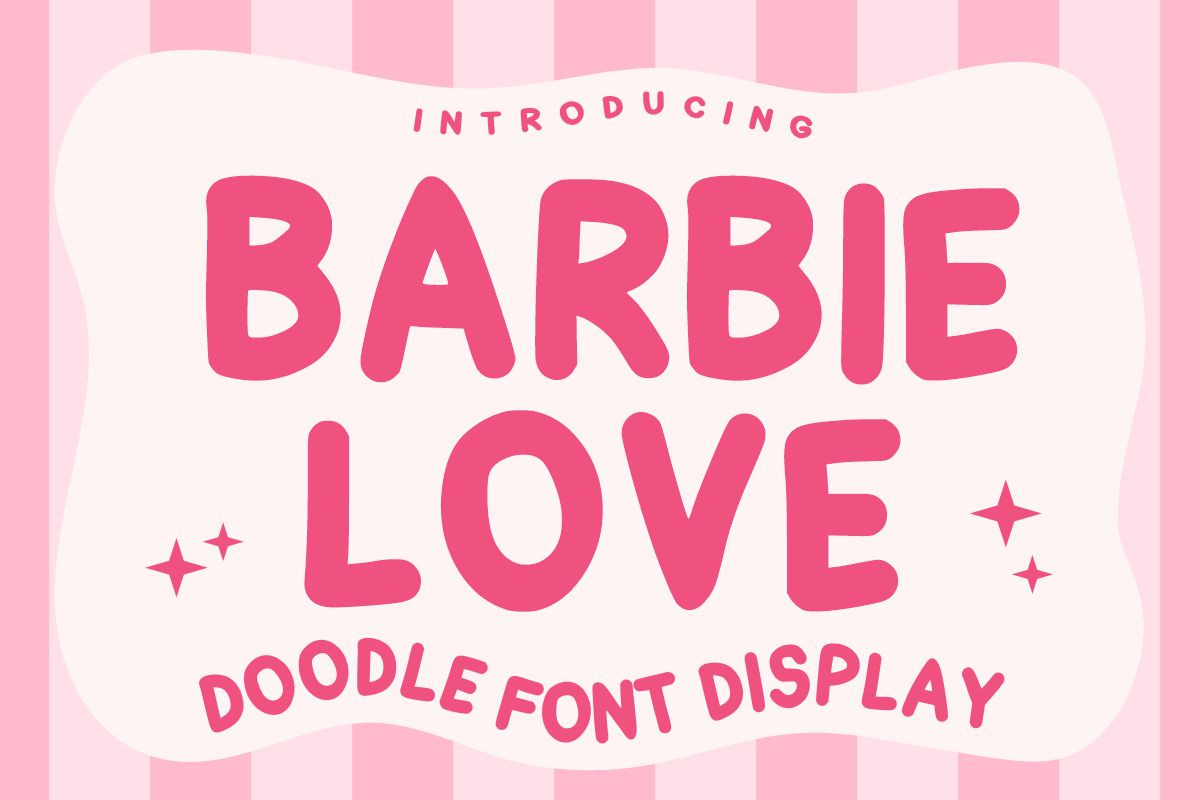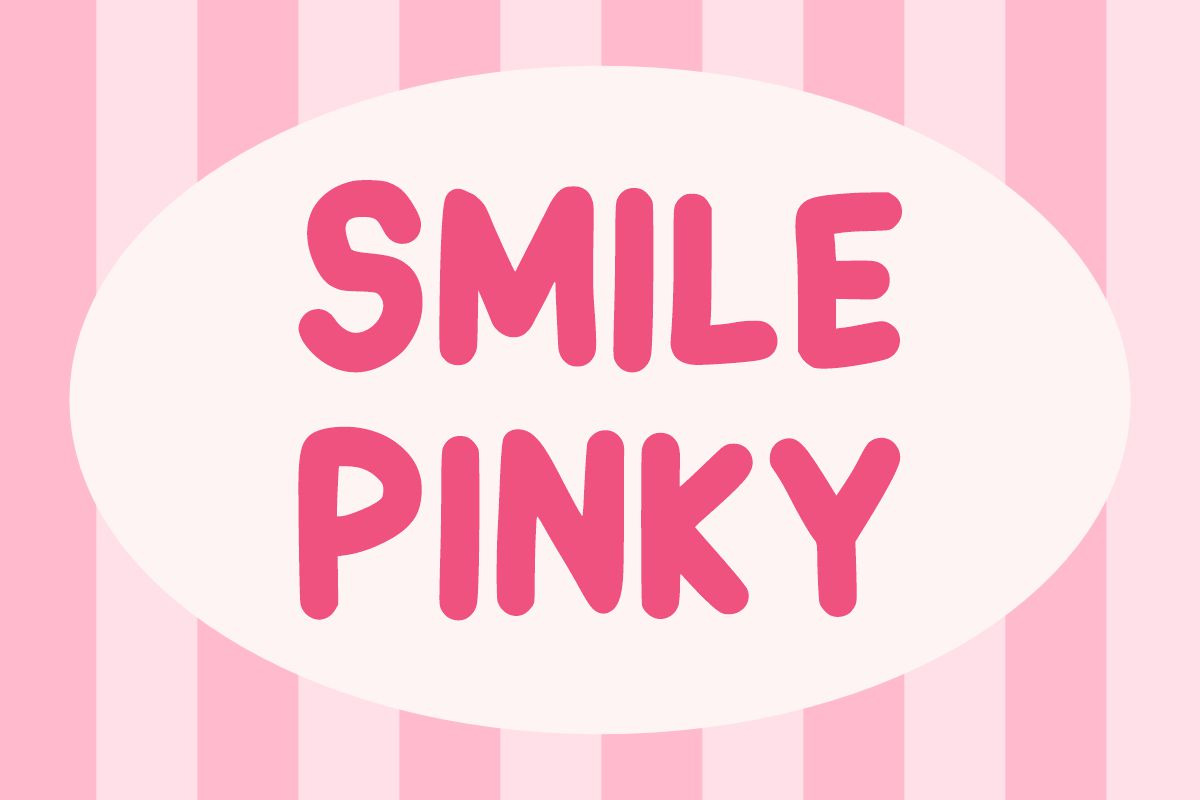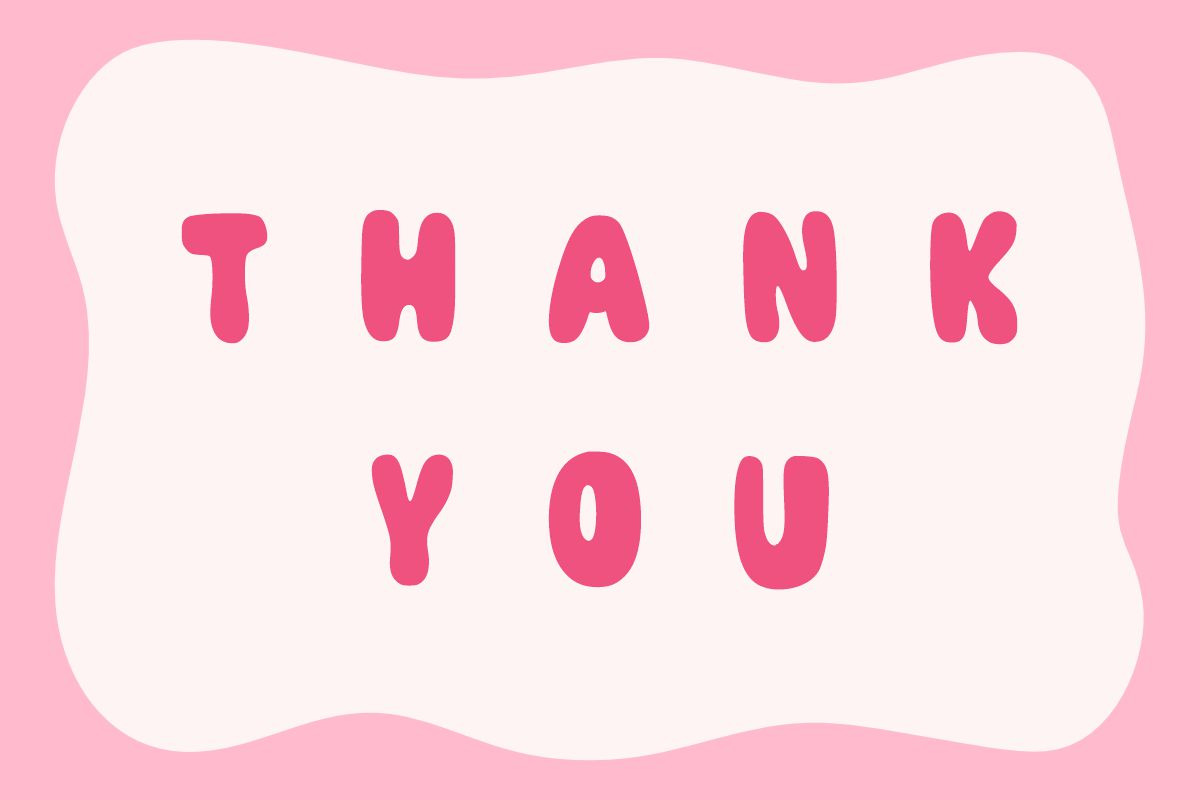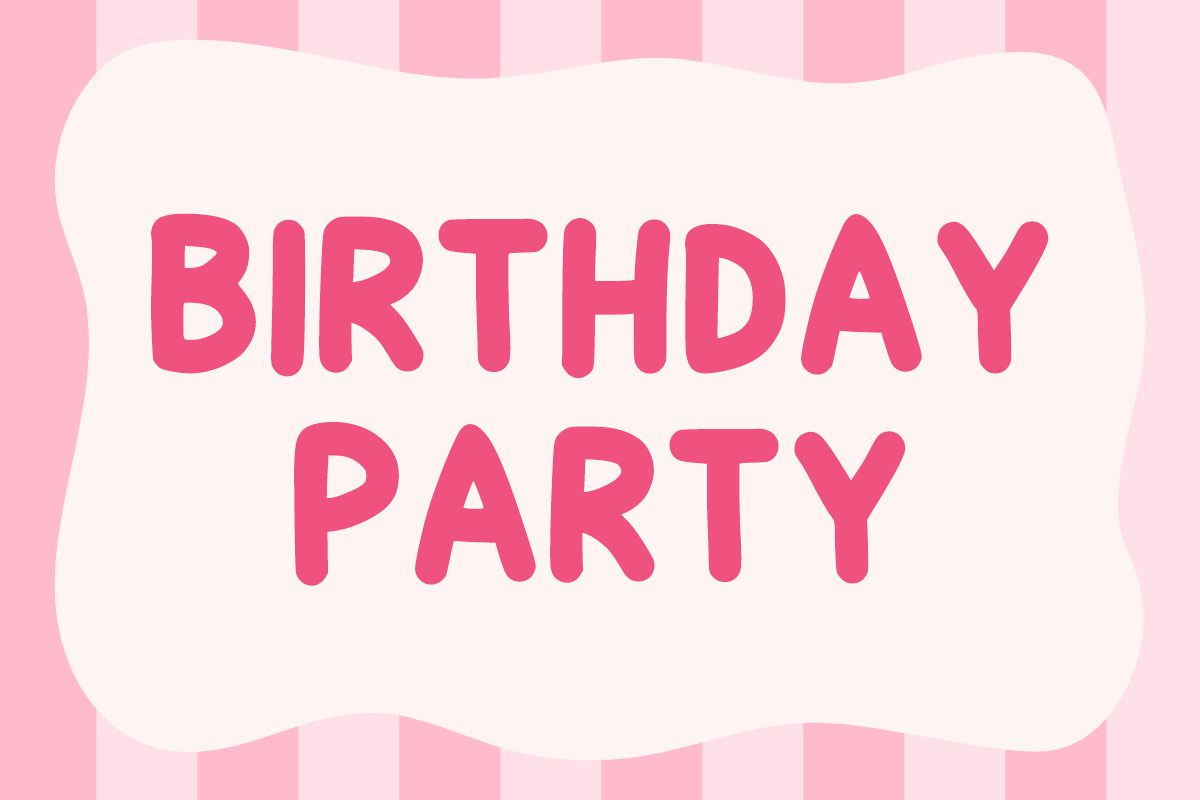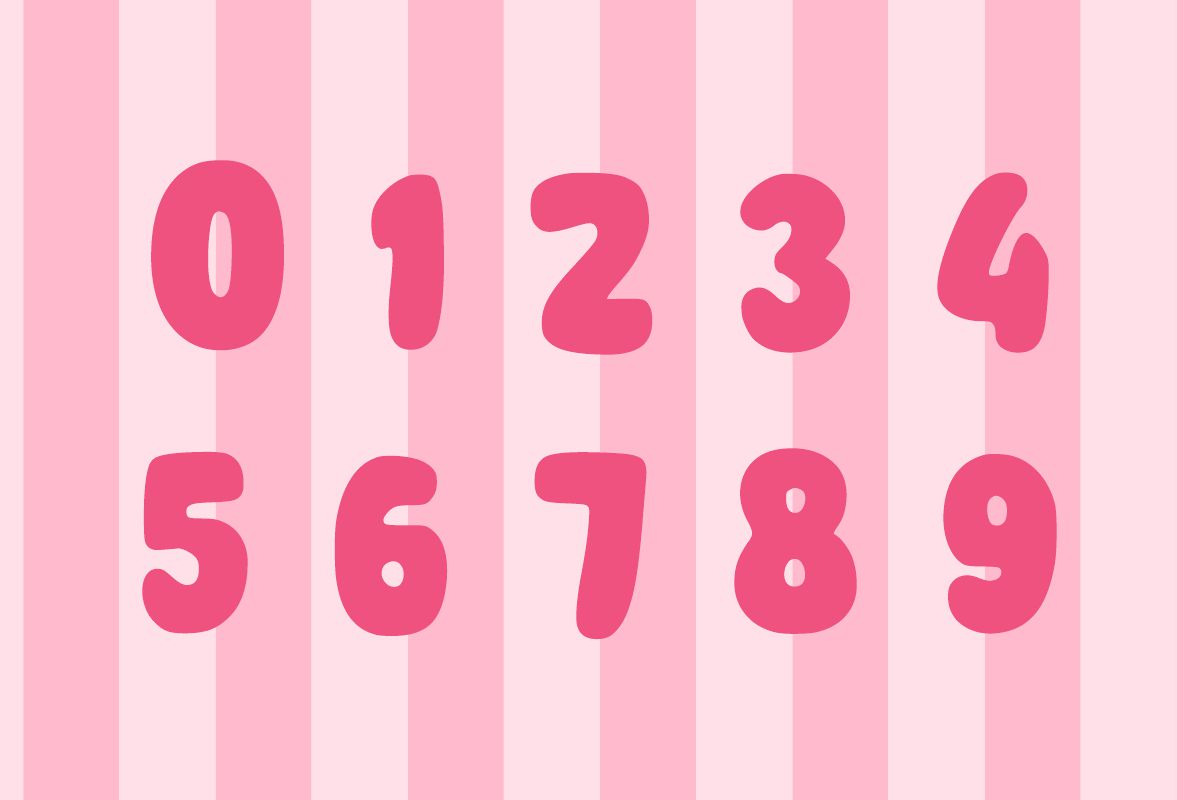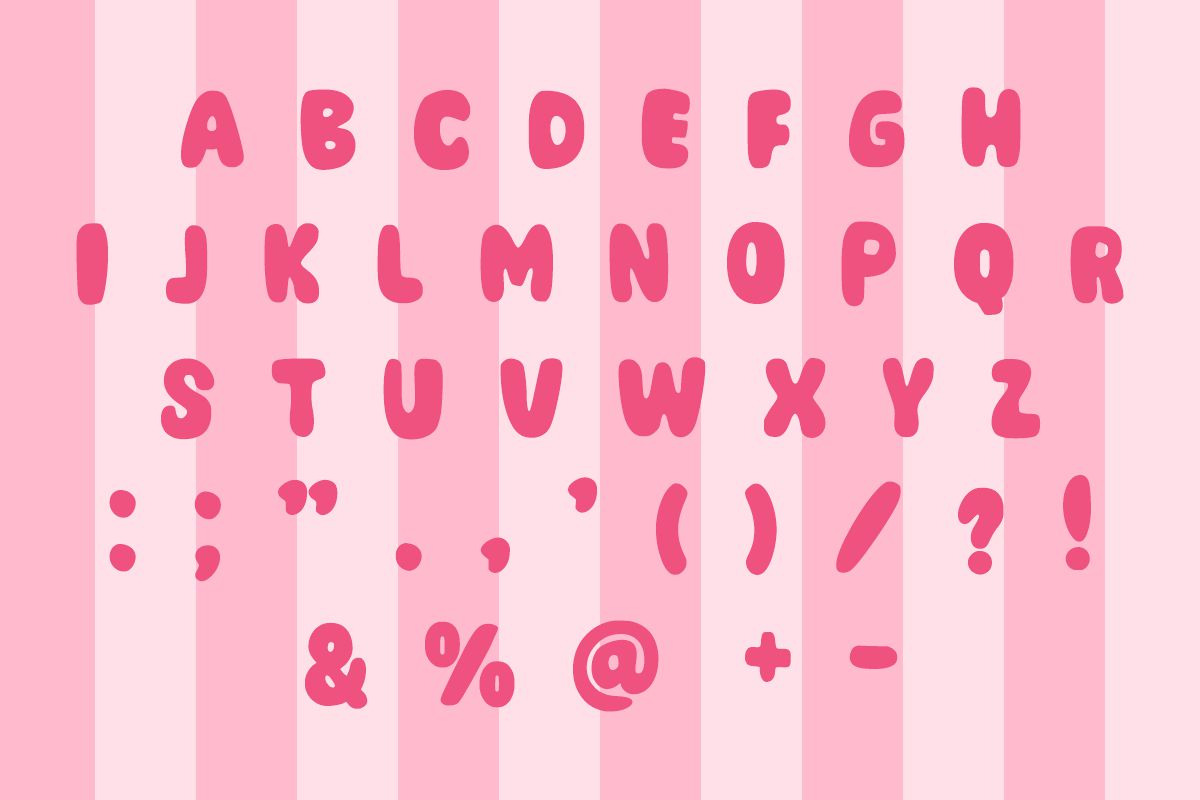
Barbie Love Font
The Barbie Love font bursts with charm and playfulness, bringing a youthful spirit to any design. Its rounded, chunky letters and doodle-like construction make it feel friendly, bubbly, and full of personality. Each glyph has a hand-drawn quality with subtle inconsistencies that add to its quirky appeal. The font’s thick weight and smooth contours ensure maximum legibility while still looking like a playful cartoon sketch. Perfect for kid-focused products, social media graphics, posters, party invites, and cheerful branding, this font instantly lifts the mood with its fun and flirty aesthetic.